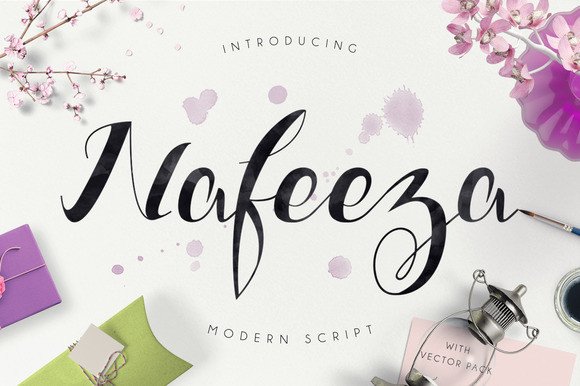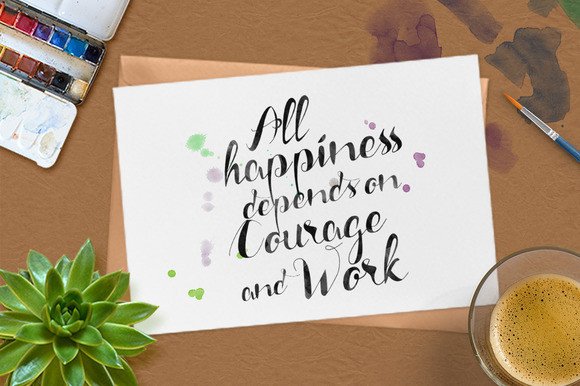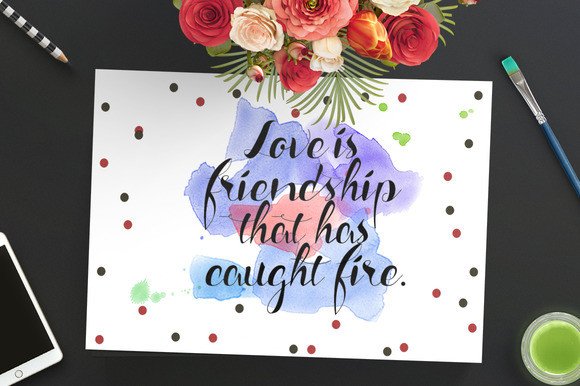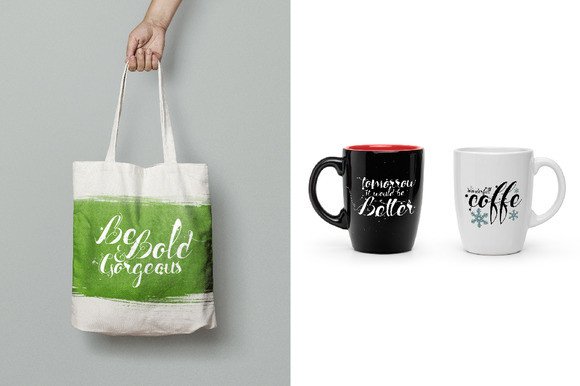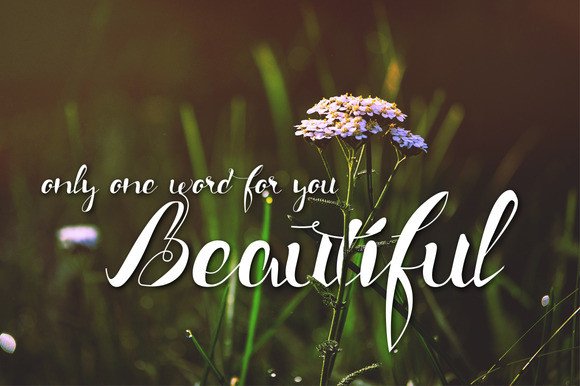
Nafeeza Font
About Nafeeza Font
Nafeeza Typeface is a modern script that can be used as letterheads, signatures, logos, wedding invitations, posters, headings, signages, labels, news, posters, t-shirt, badges, and much more!
Nafeeza Script features 209 alternate characters and includes alternates, ligatures, and numerals.